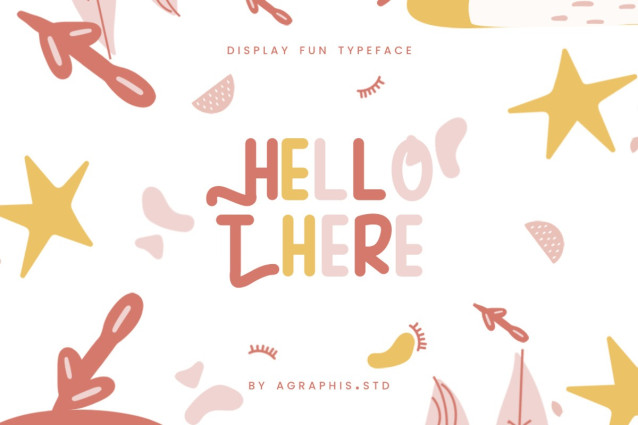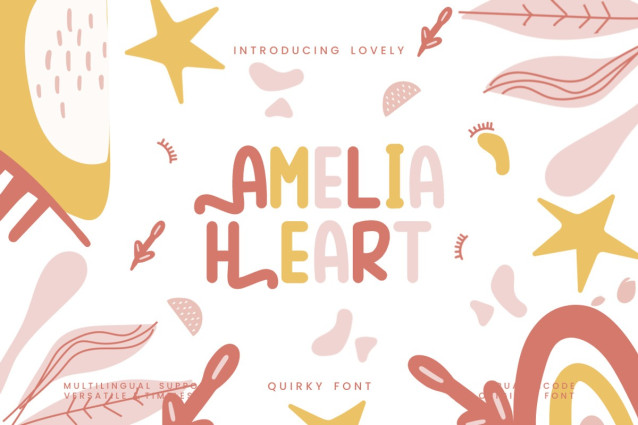
Amelia Heart Font
Amelia Heart Font is a quirky display font with a unique style. Fall in love with its playful look and use it to bring any DIY project to life! , from Agraphis Studio, suitable for any projects such as: logos, branding projects, homeware designs, product packaging, mugs, quotes, posters, shopping bags, t-shirts, book covers, name card, invitation cards, greeting cards, label, photography, watermark, special events, and all your other lovely projects that need a beautiful Display taste.